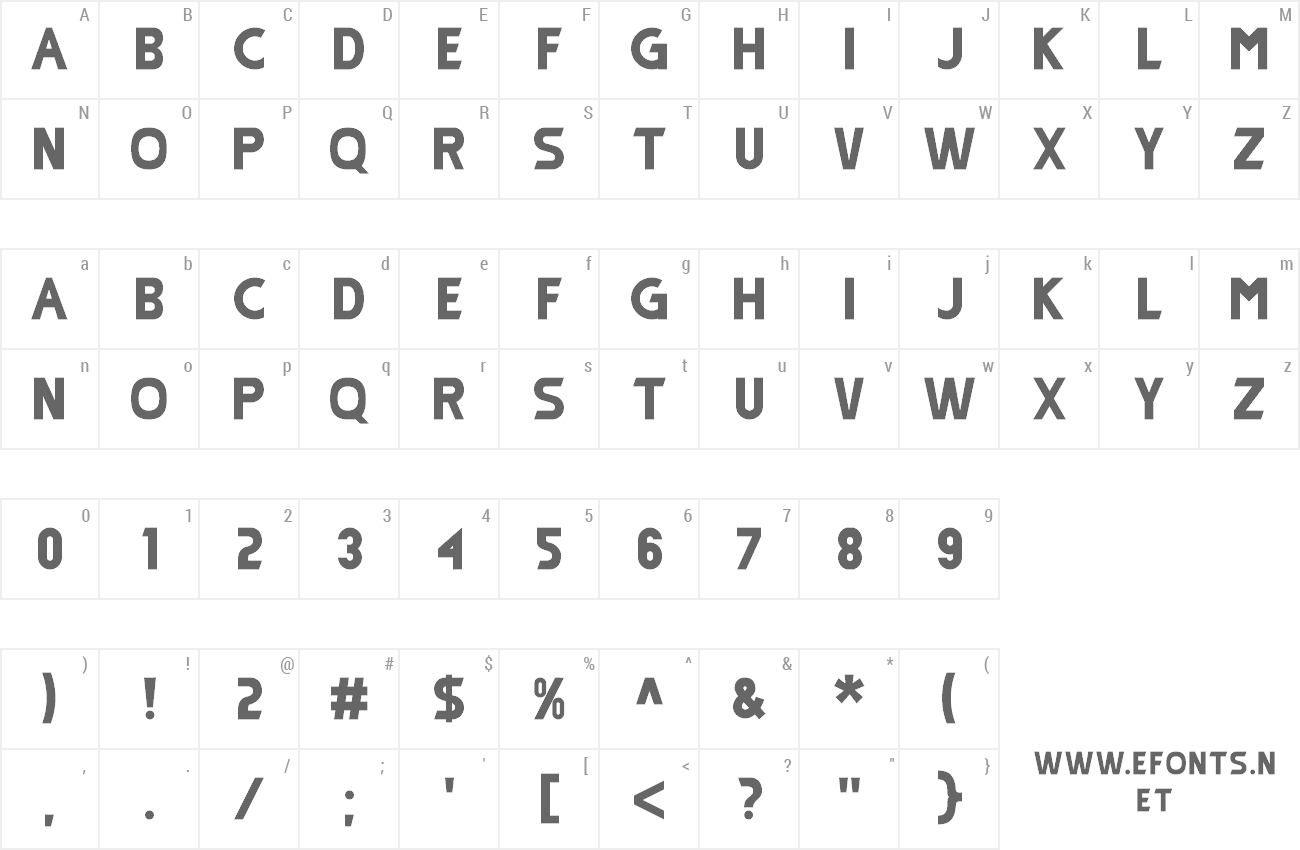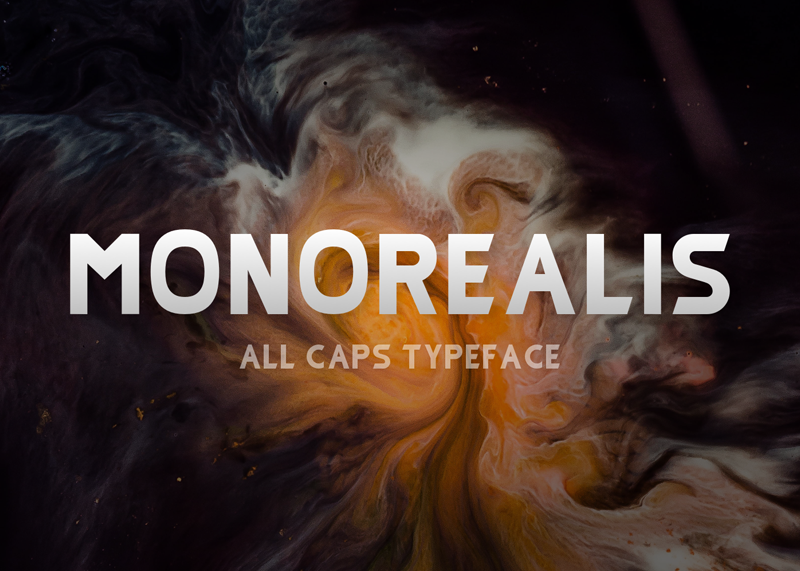
Preview and download Monorealis Font. Created by Azis Maulana Ihsan in Techno Sci-fi styles with Free for personal use license.
THIS IS FOR PERSONAL USE ONLY. Monorealis is a simple and neat sans serif font. Modern and futuristic font shapes will suit your various design needs. Add it to your project and let imagination guide you. FOR COMMERCIAL USE BUY AT CREATIVE FABRICA https://www.creativefabrica.com/product/monorealis/ref/431024/ BUY VIA GUMROAD https://gum.co/rBWHj |